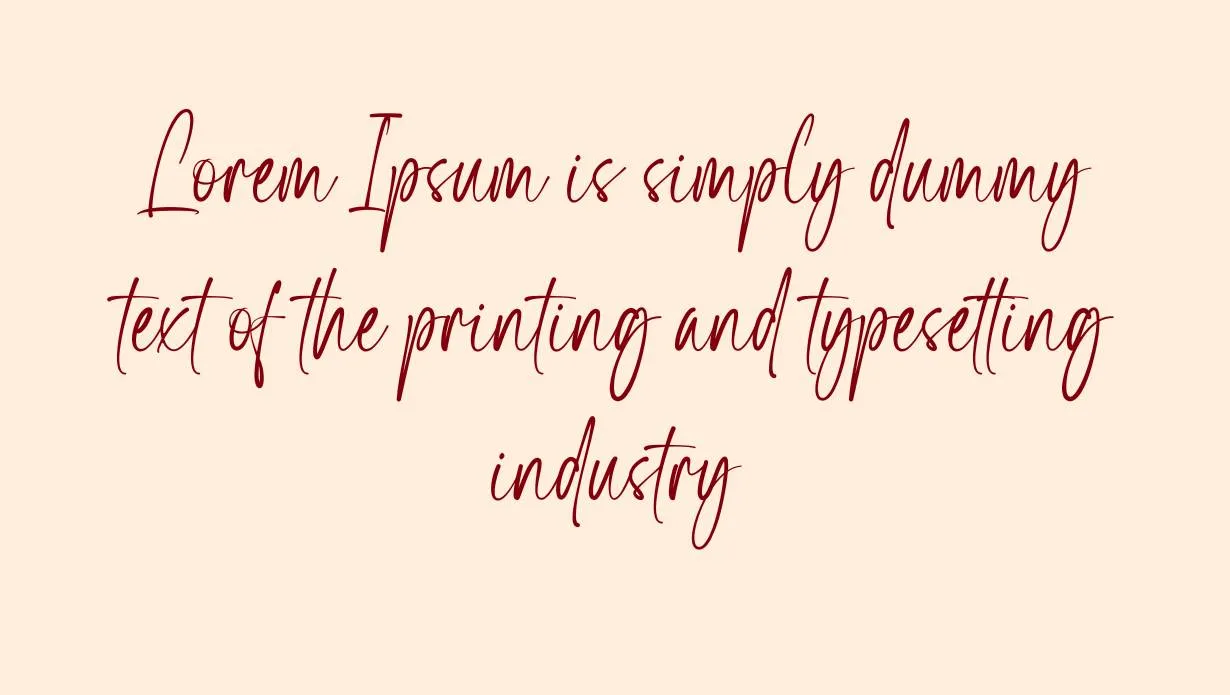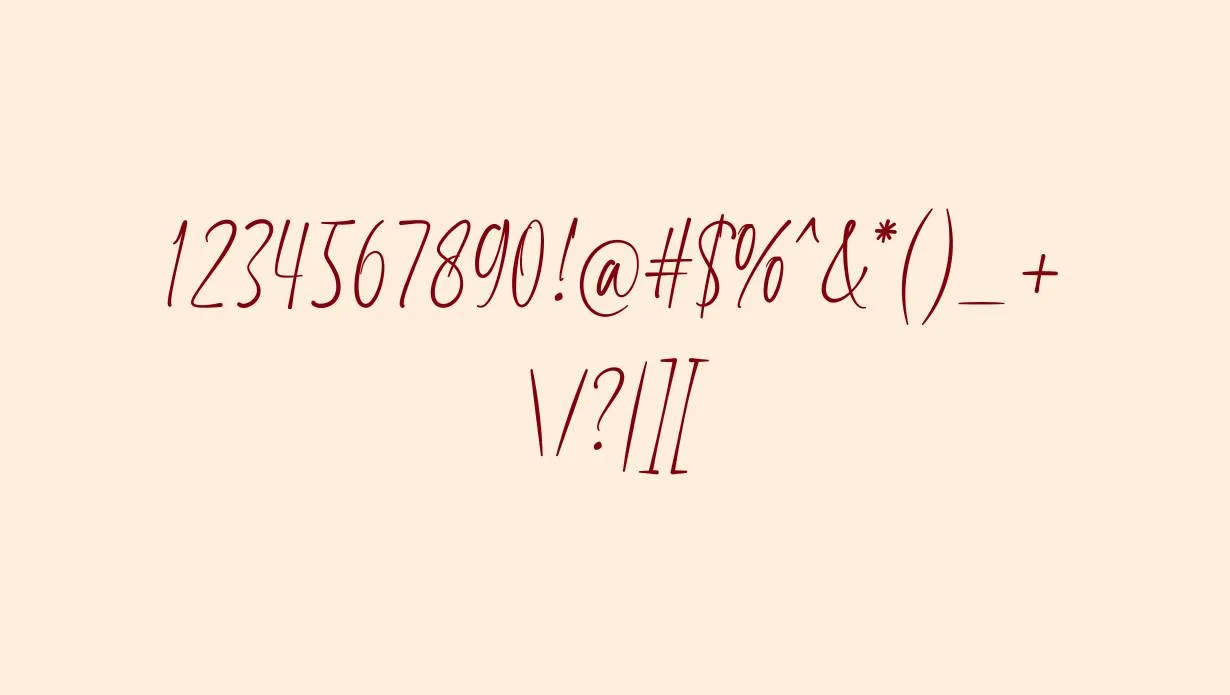
Blue Gold font is a script-type calligraphy font. This stunning font was designed by IanMikraz Studios. You can make amazing wedding cards and other event invitations.